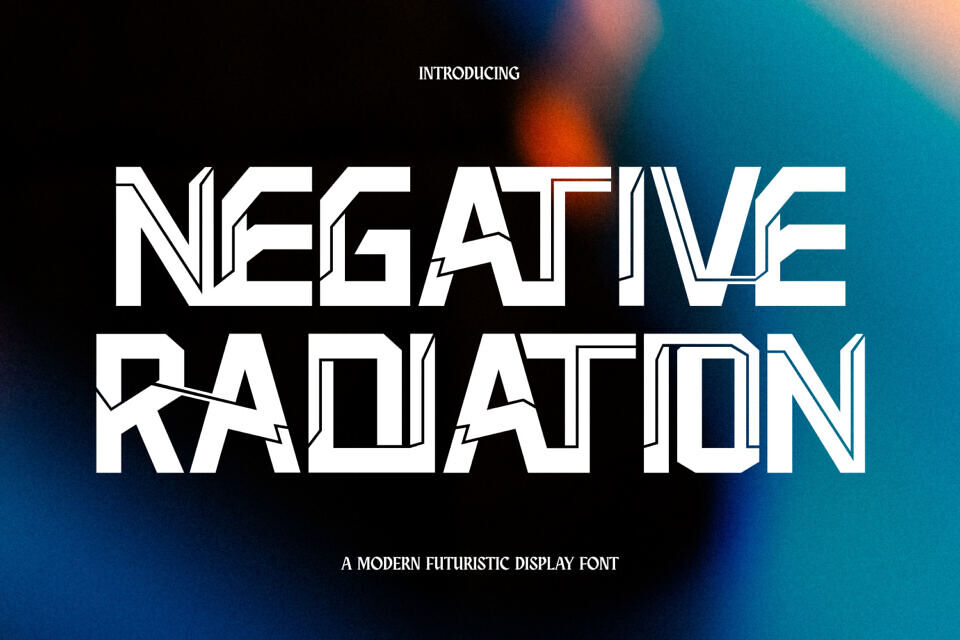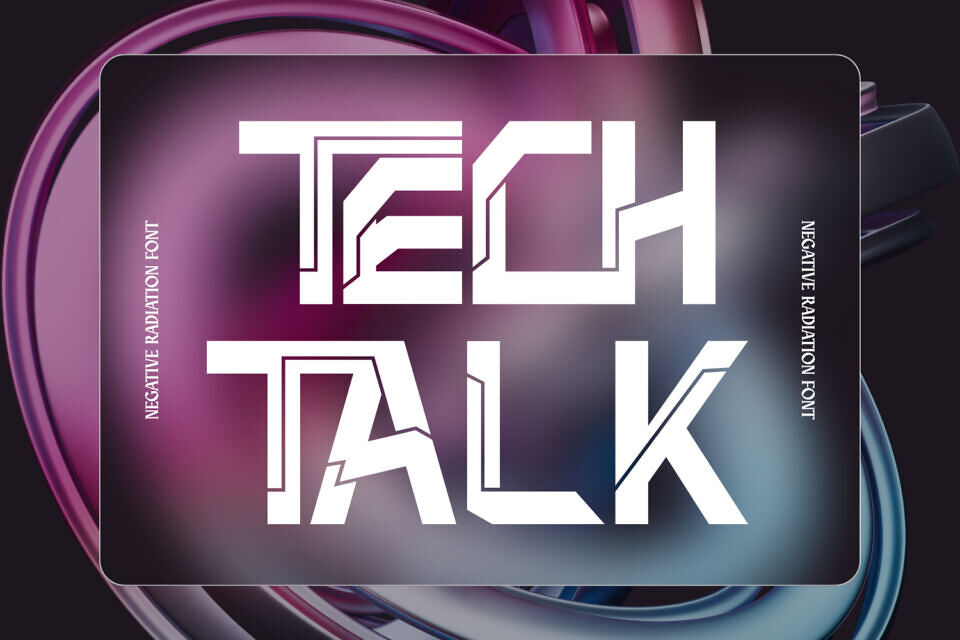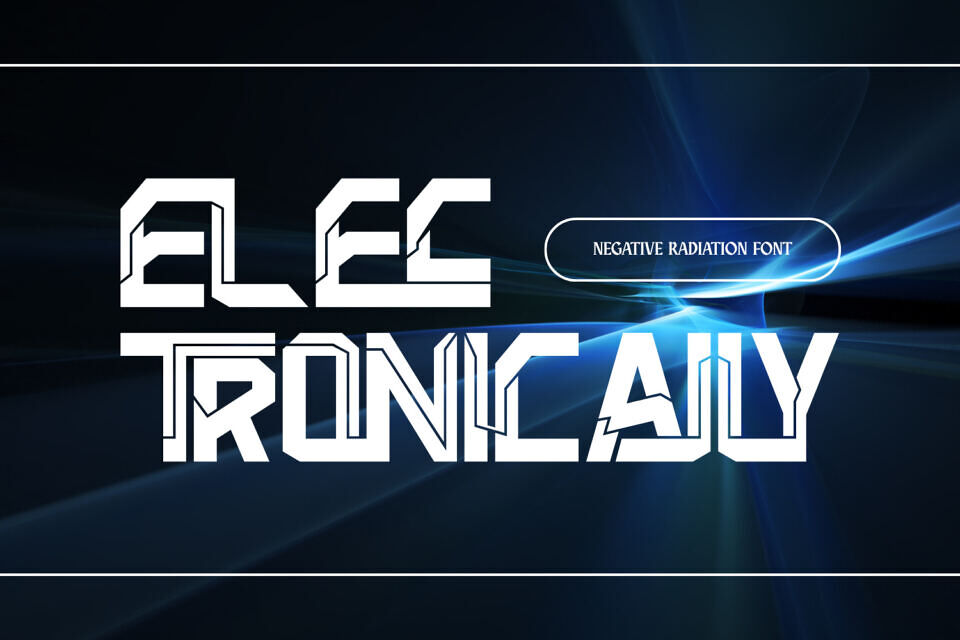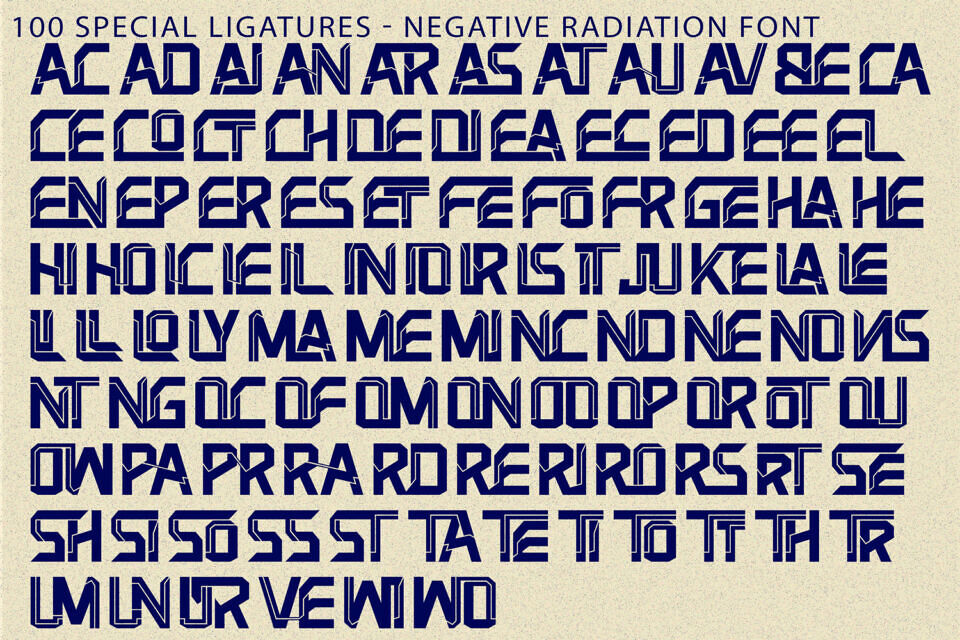
Negative Radiation Font
Negative Radiation is a futuristic techno display sans-serif typeface inspired by cyberpunk aesthetics and modern digital design. Built with bold angular shapes, sharp geometric cuts, and mechanical details, this typeface delivers a powerful high-tech visual identity.
Its strong modular structure and dynamic letterforms create a striking rhythm that instantly evokes innovation and energy. Negative Radiation is perfect for gaming titles, sci-fi posters, esports branding, technology logos, and futuristic design projects.